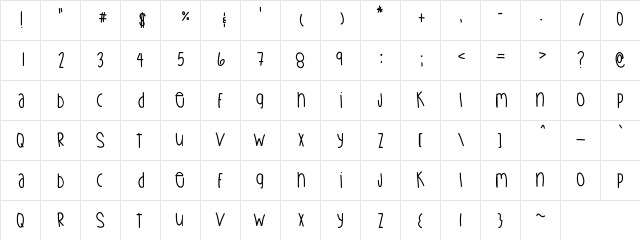
BetterGreatgood Medium
Design Context for BetterGreatgood Typeface
BetterGreatgood is a composed and adaptable typeface that performs quietly and consistently across a wide range of design contexts.